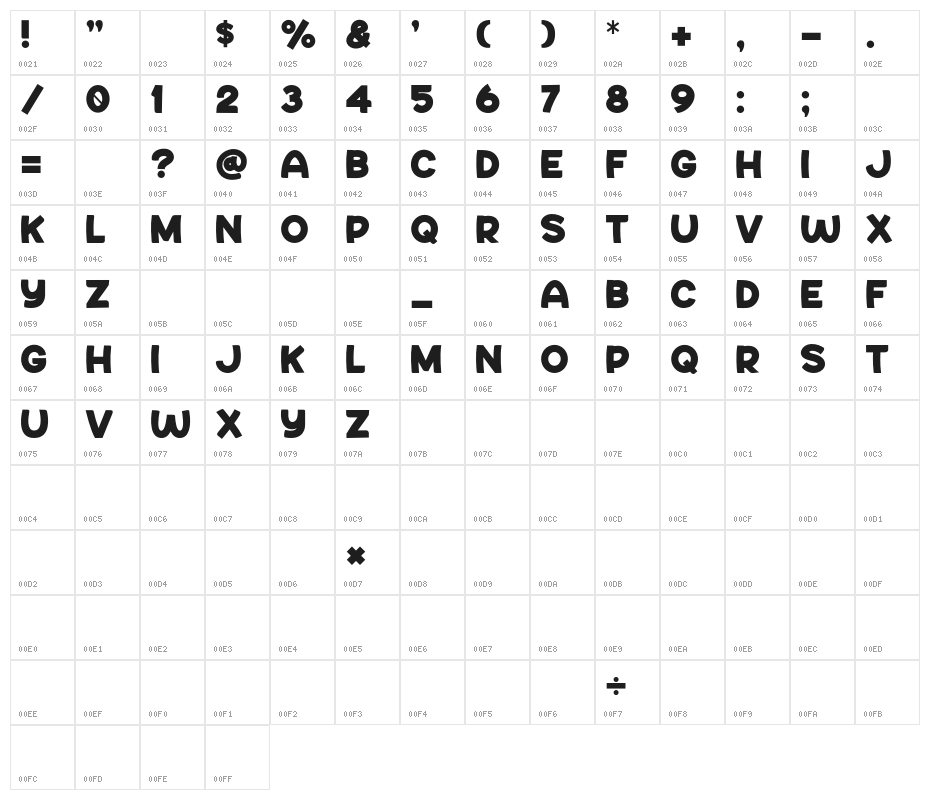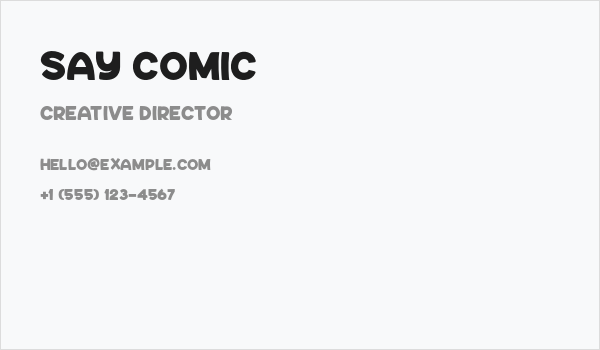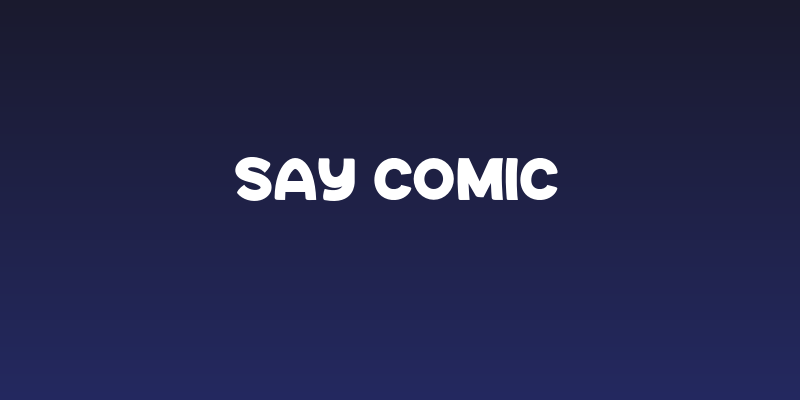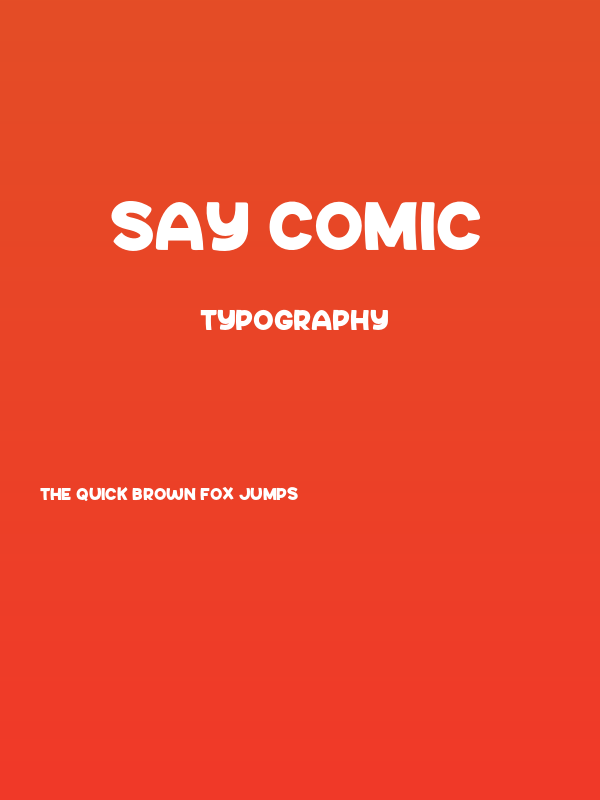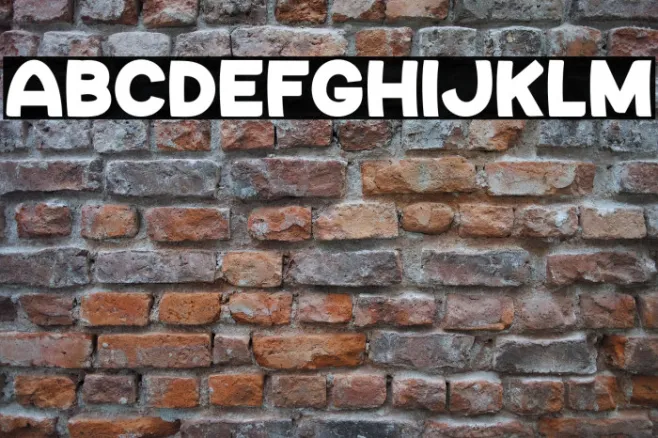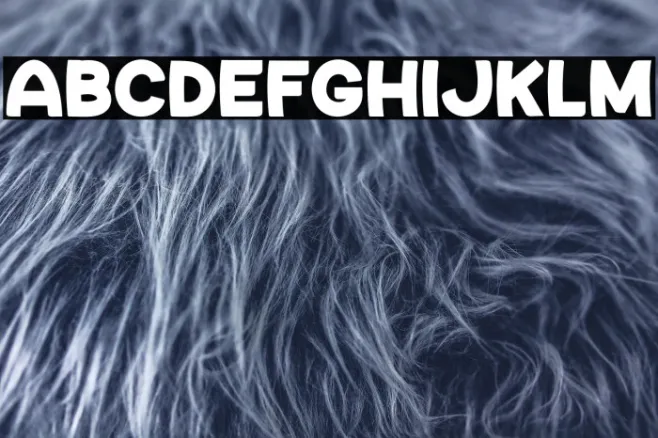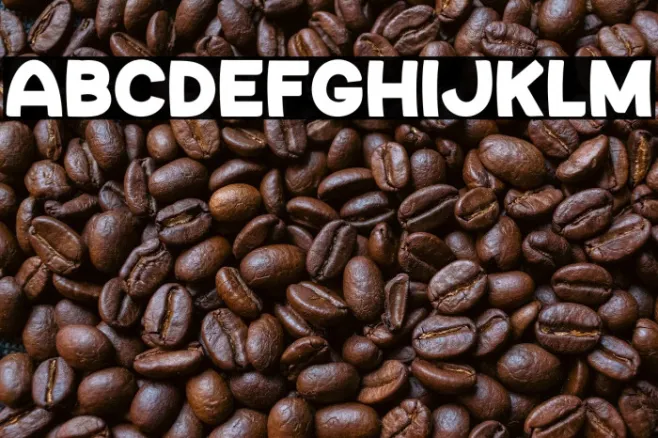
Say Comic Font
Say Comic Description
This playful and bold font features thick, rounded letters with a comic-style appearance. The characters are uniformly bold, with a slight tilt that adds a dynamic and lively feel. The uppercase and lowercase letters maintain a consistent style, with exaggerated curves and a friendly, approachable look. Numbers and special characters are equally bold and rounded, ensuring a cohesive appearance across all elements. The font's whimsical nature makes it ideal for projects that require a fun and informal touch.
| Overall Style | Playful, Comic |
| Proposed Projects | Ideal for comic books, children's books, playful branding, and casual posters. |